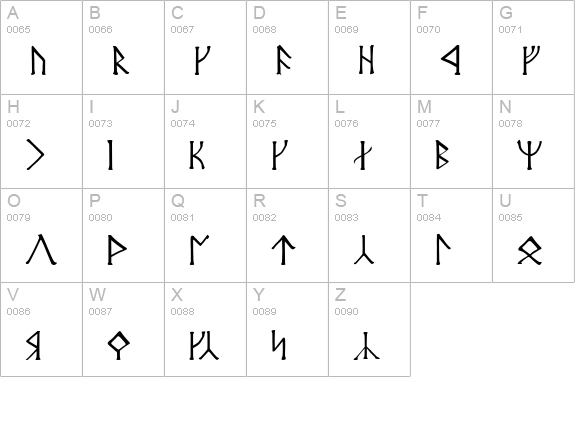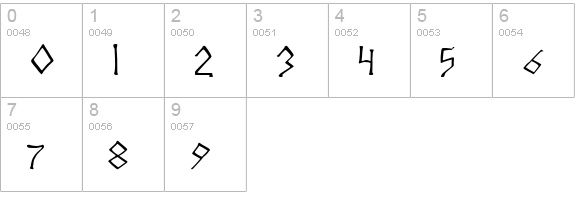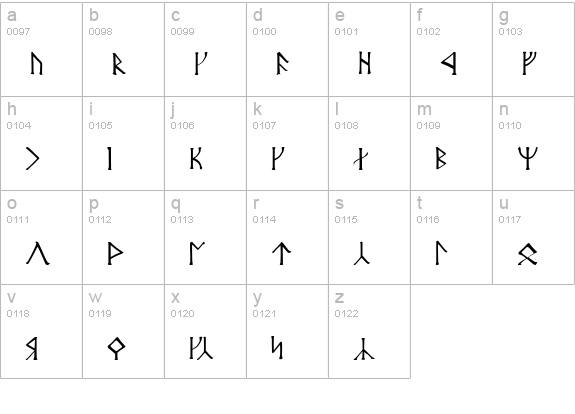
Angerthas Moria Font Details
Angerthas Moria font is a beautifully crafted typeface inspired by the intricate runic writing system of the Dwarves in J.R.R. Tolkien's Middle-earth. This unique font exudes a sense of ancient mystique and dwarven craftsmanship, making it perfect for fantasy-themed designs, book covers, and posters. With its bold and angular letterforms, Angerthas Moria font captures the essence of the Dwarven culture and language, adding a touch of authenticity to any project. Its distinct style sets it apart from standard fonts, making it a standout choice for those seeking to add a touch of fantasy and adventure to their designs. The best part is, Angerthas Moria font is completely free to download at FontsMarket.com, allowing you to easily incorporate this captivating typeface into your creative projects without any cost. Don't miss out on the opportunity to enhance your designs with the magic and mystery of Angerthas Moria font. Download it today and let your imagination run wild!